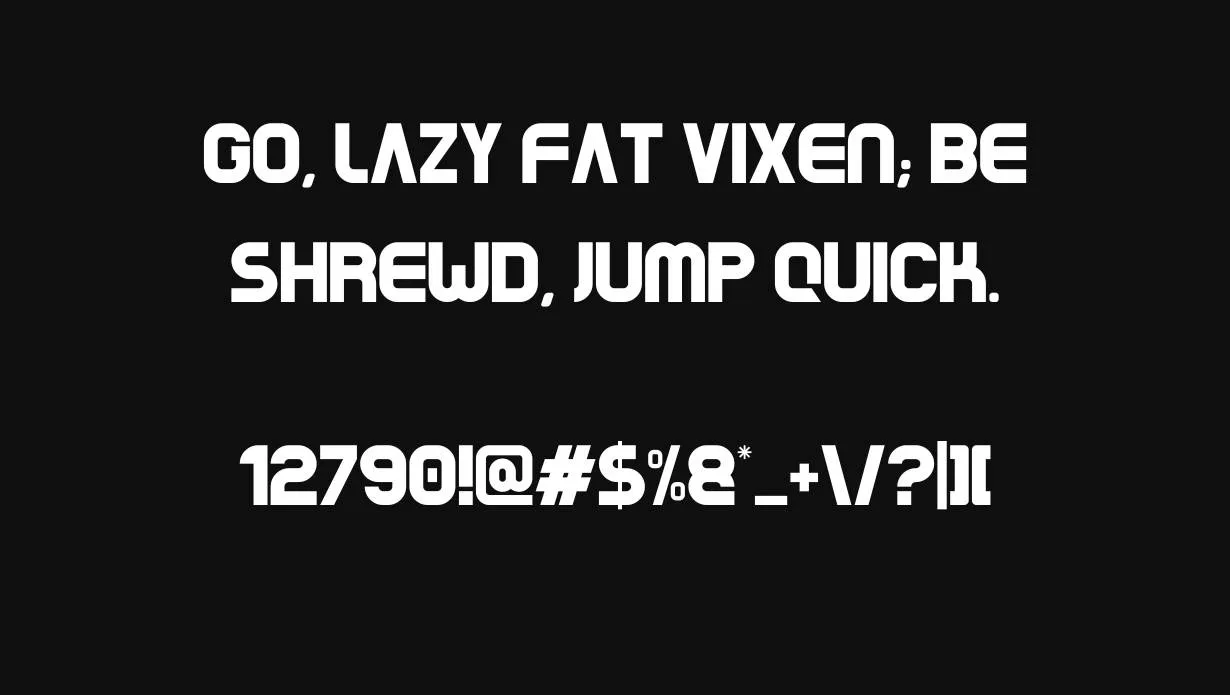
Step into boldness with Beaver Font, a typeface that commands attention. Its strong and distinctive style is perfect for headlines and titles that need to make a statement. The robust characters of Beaver Font give your text authority and impact, making it an excellent choice for projects where you want your words to stand out and leave a lasting impression.
If you’re looking to convey strength and prominence, Beaver Font is the font that will make your text unmissable.
| Name | Beaver Font |
| Designer | Alper Çakıcı |